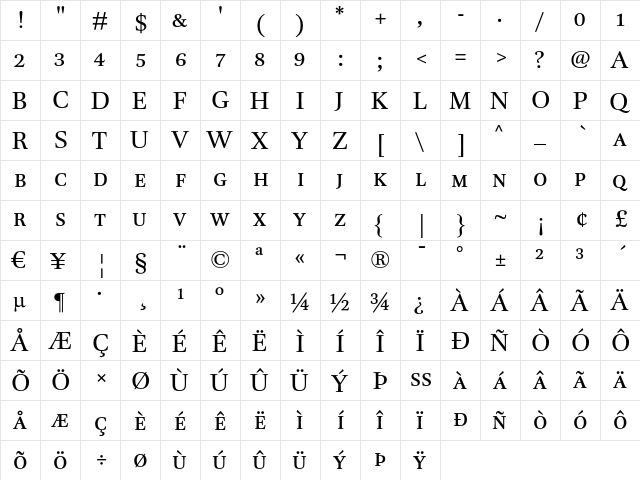
DTLUnicoT-Caps Regular
| Foundry | Dutch Type Library |
| Designer | Michael Harvey |
Design Context for DTLUnicoT-Caps Typeface
DTLUnicoT-Caps is a composed and adaptable typeface that performs quietly and consistently across a wide range of design contexts.